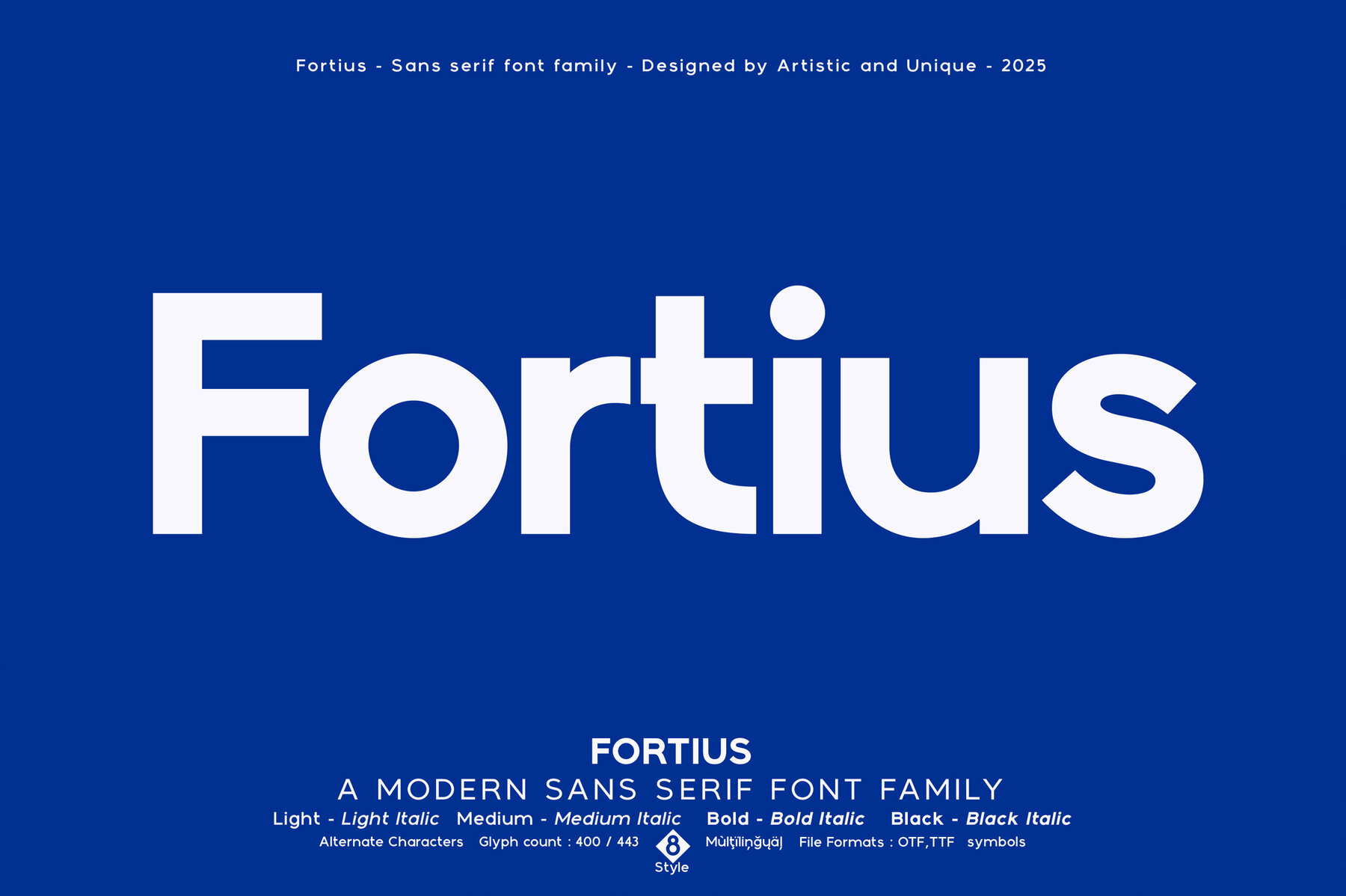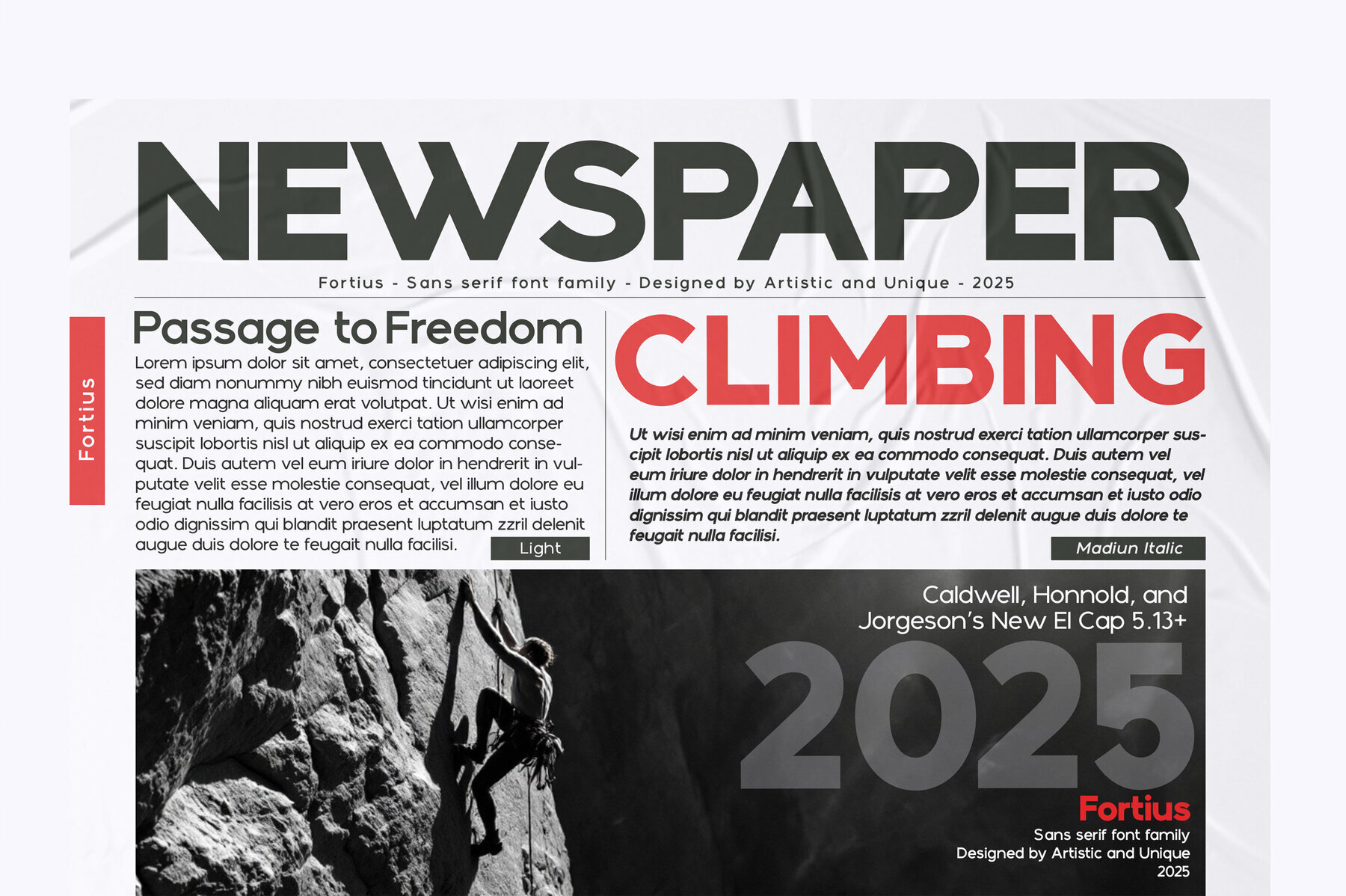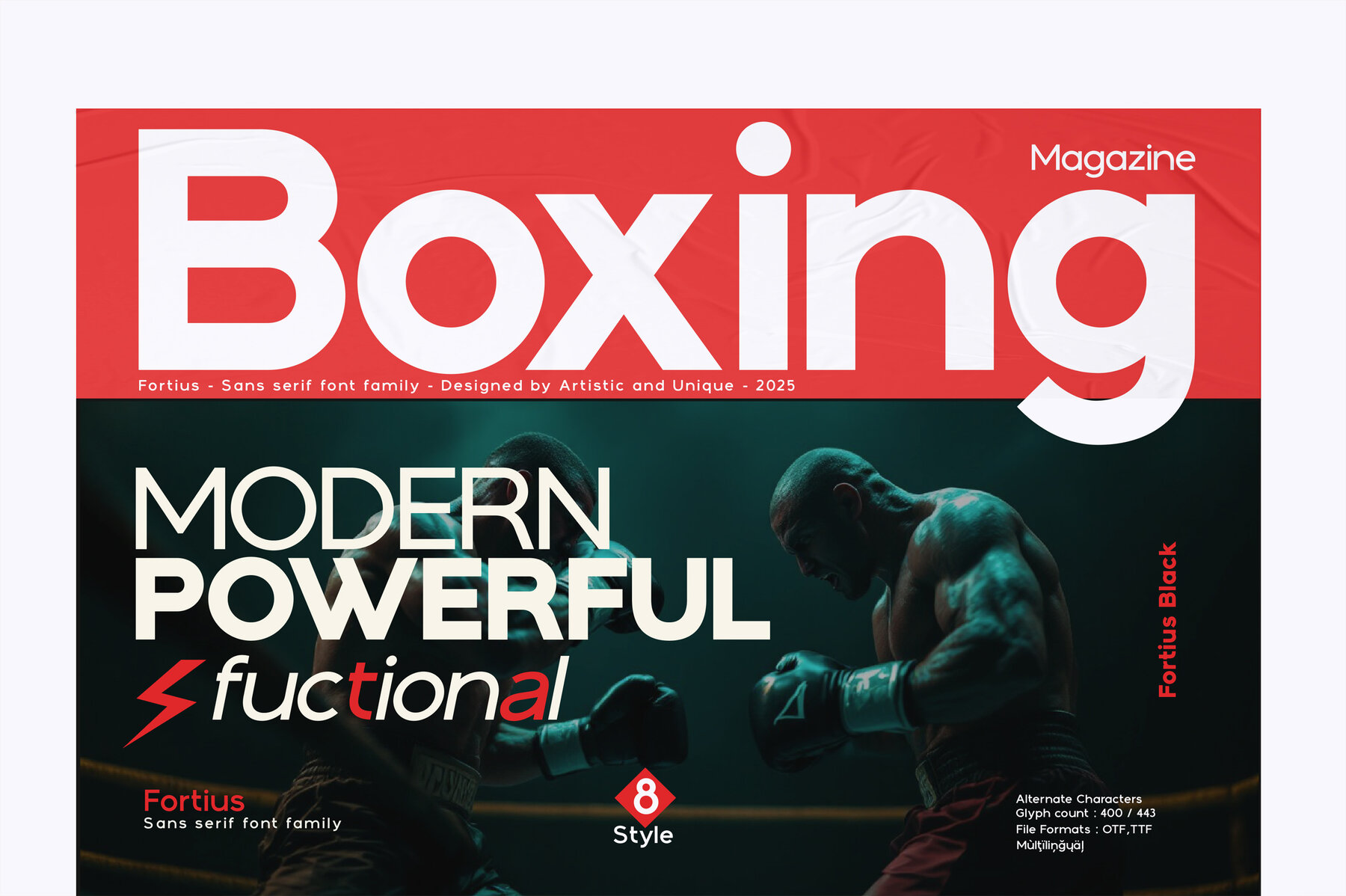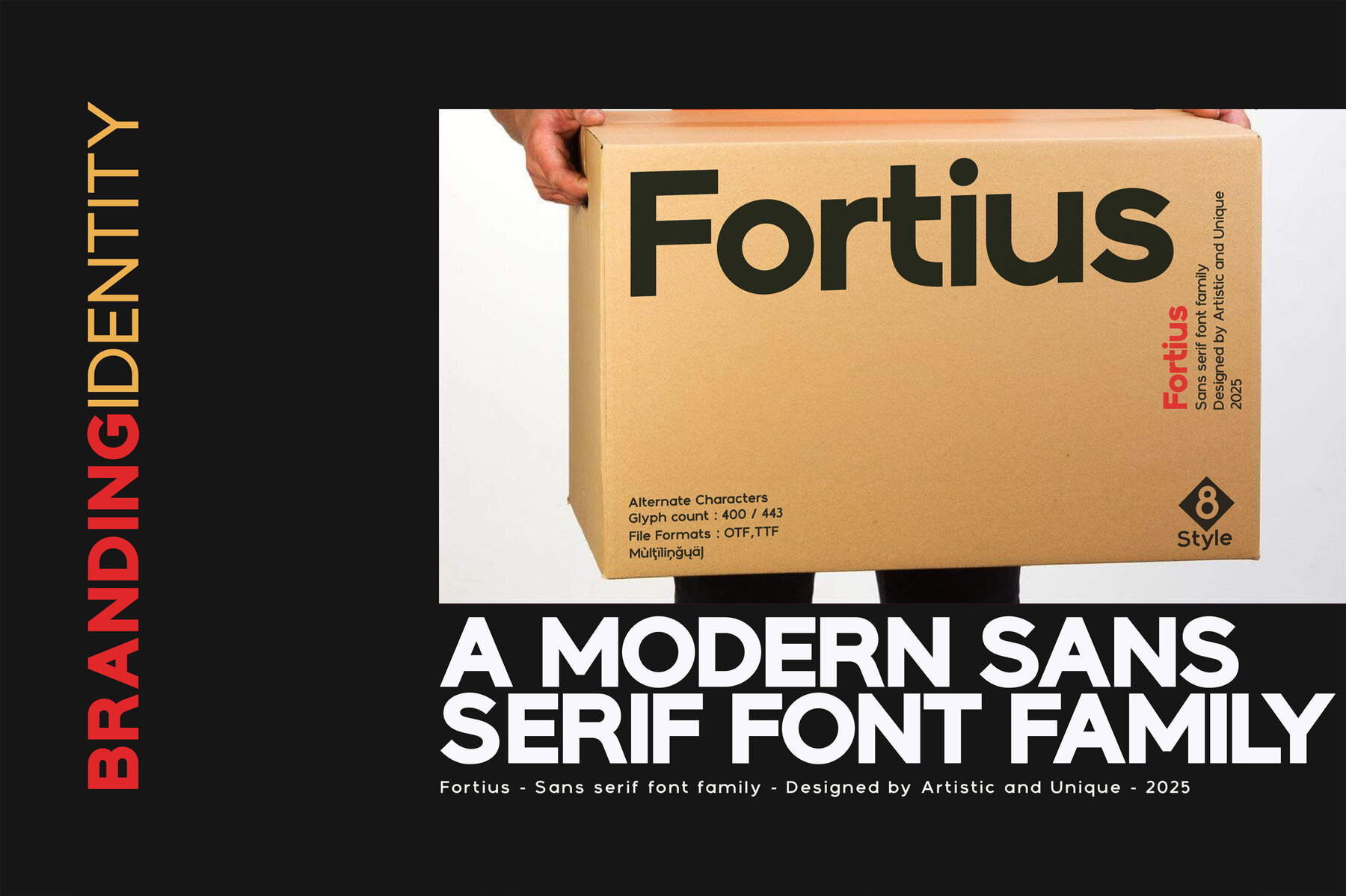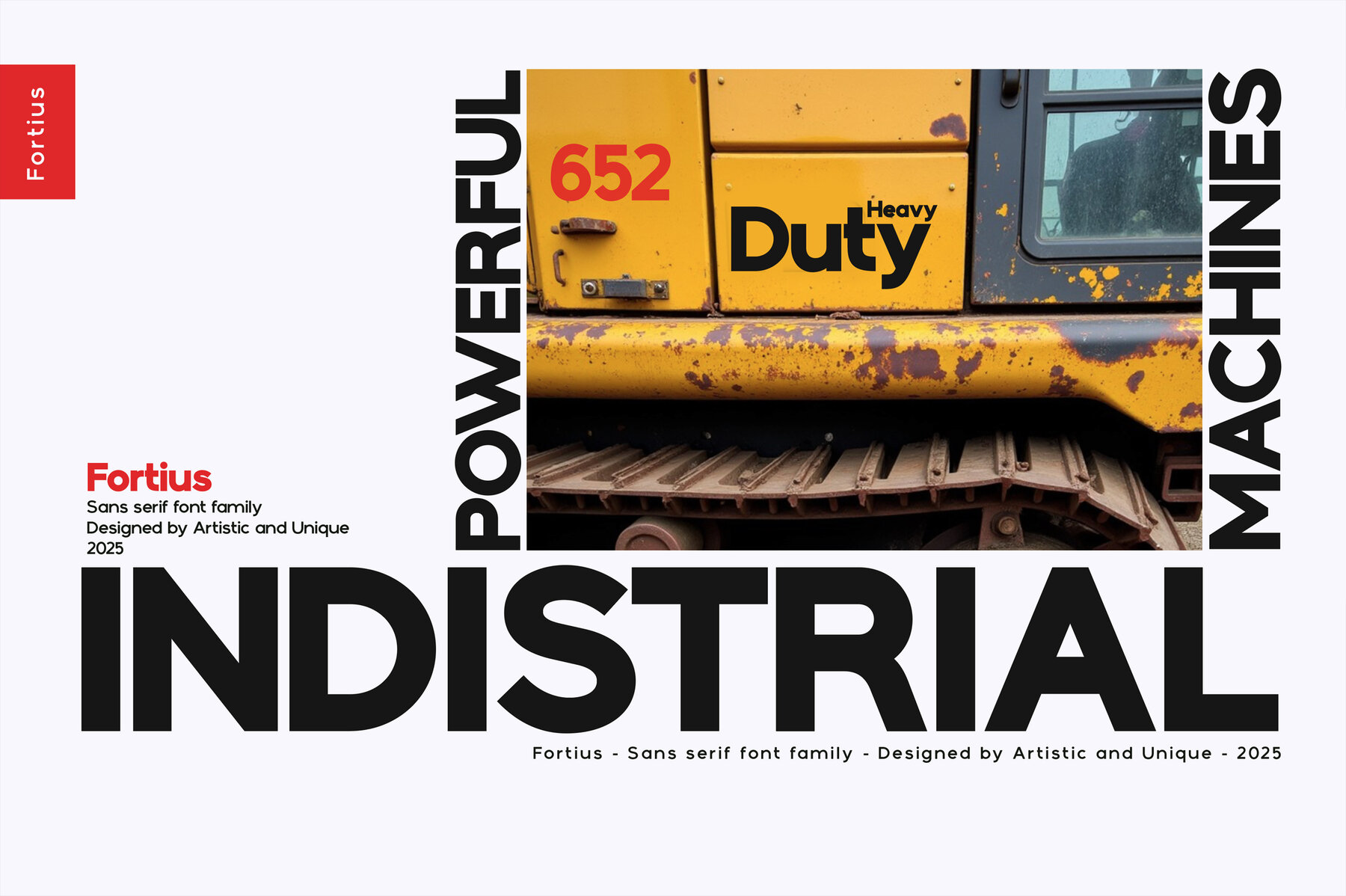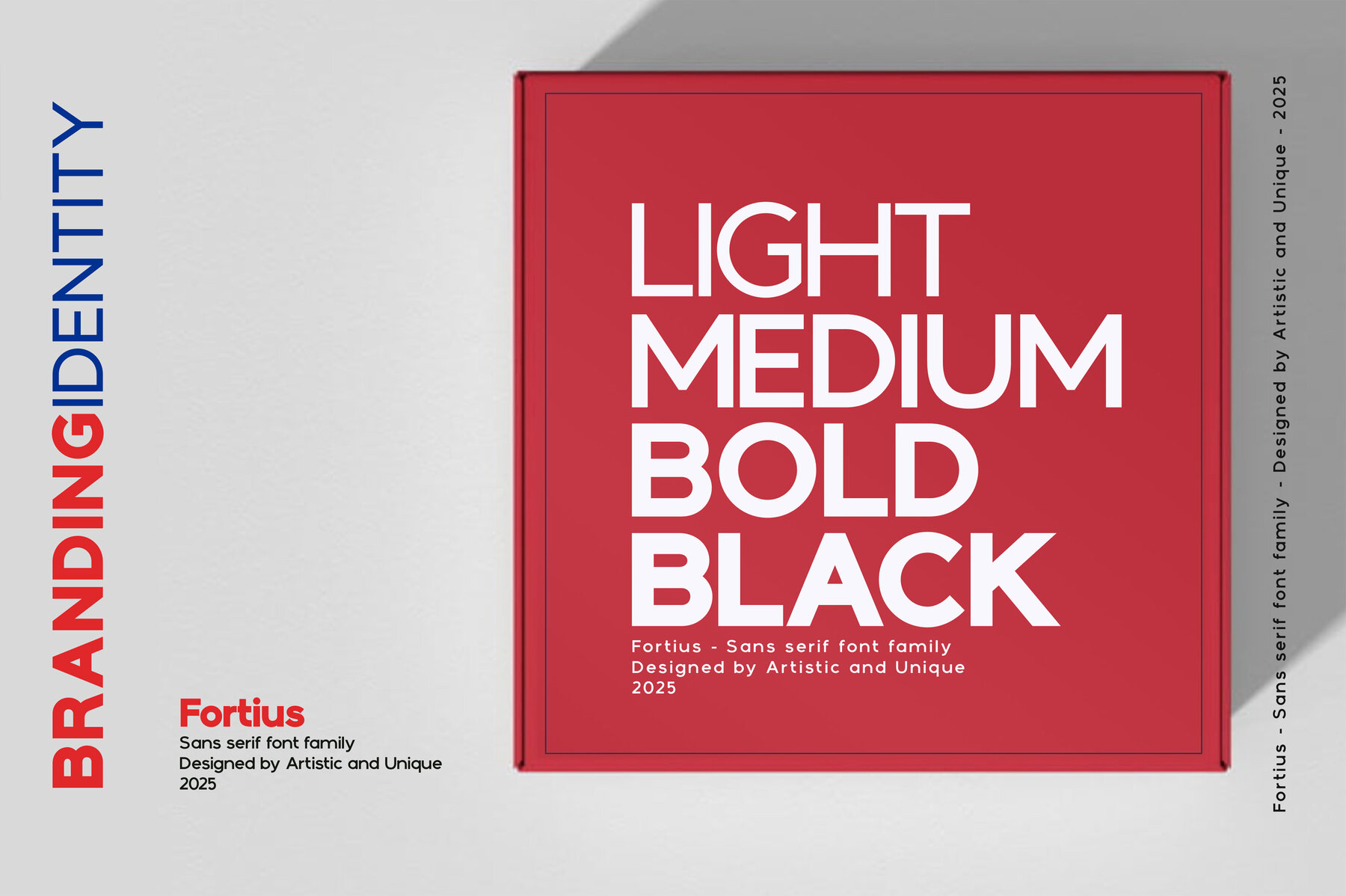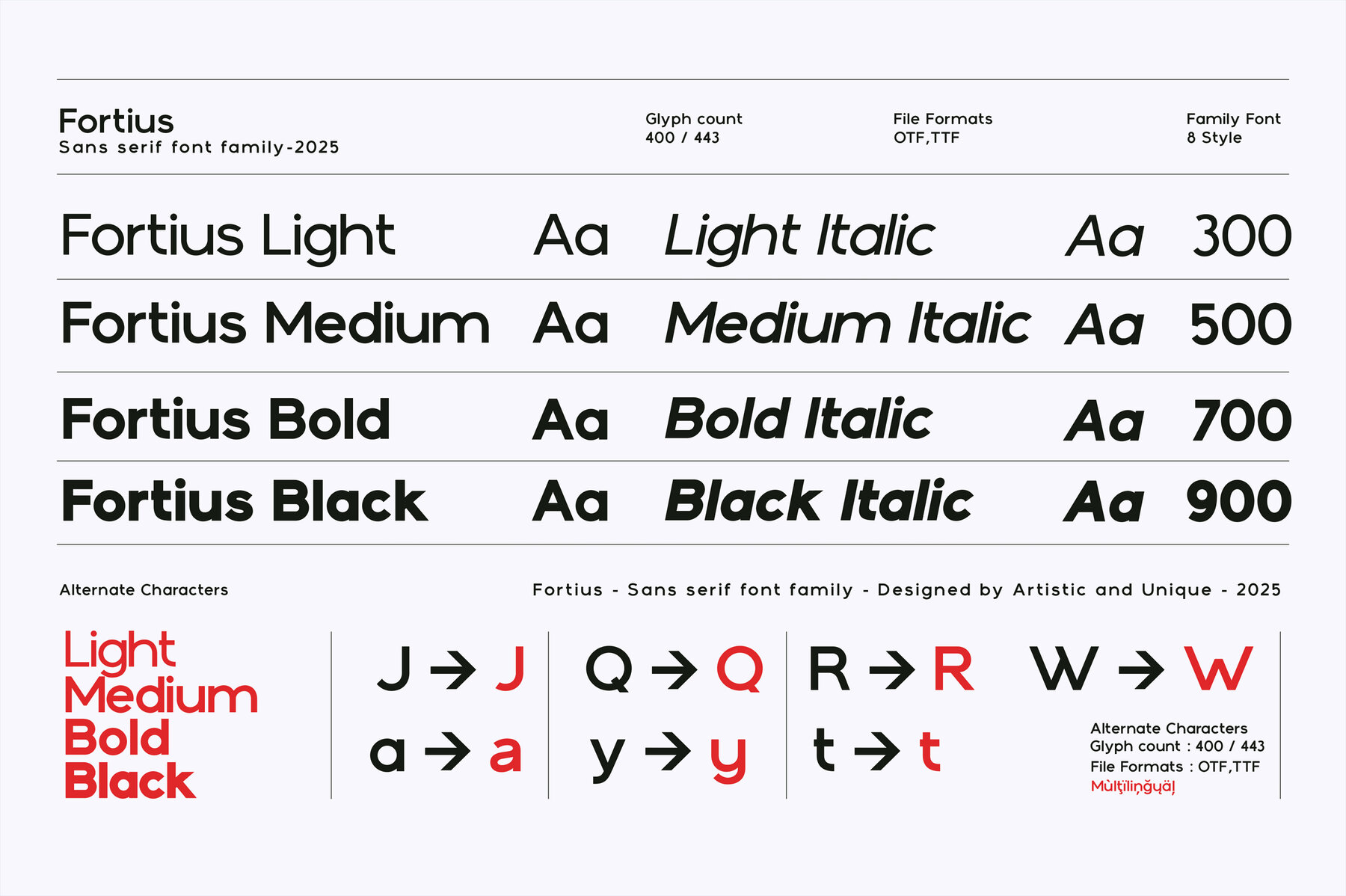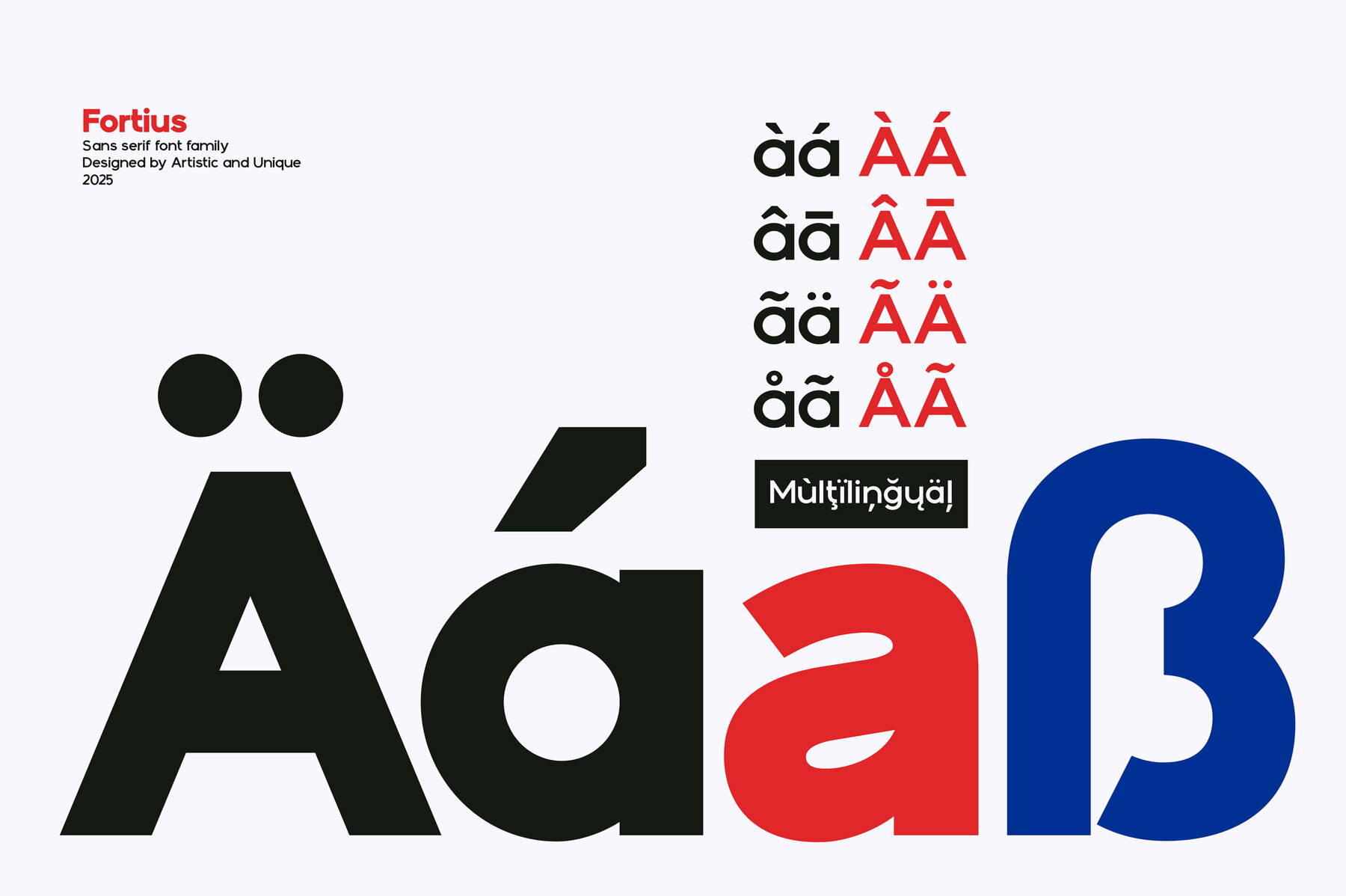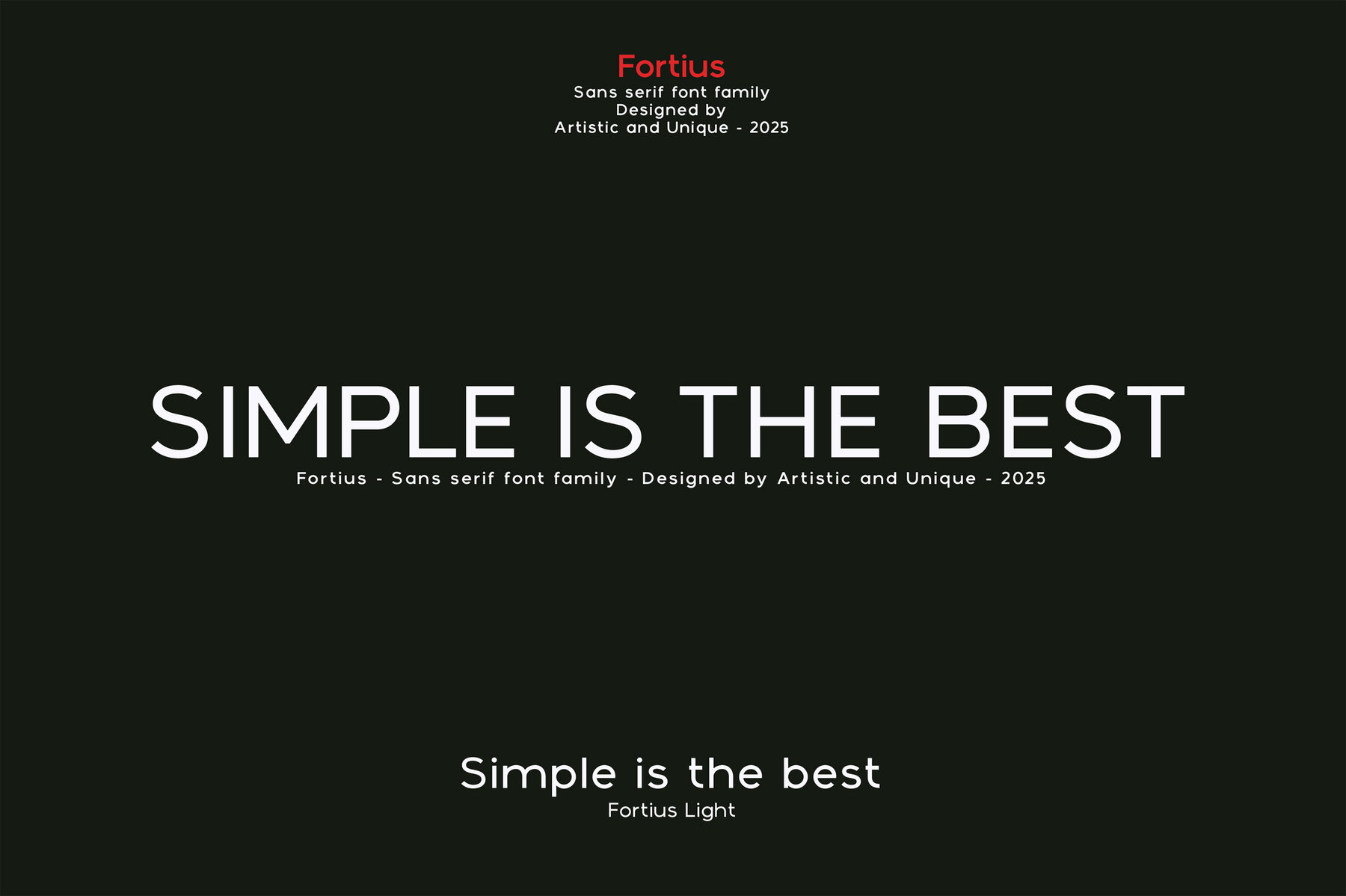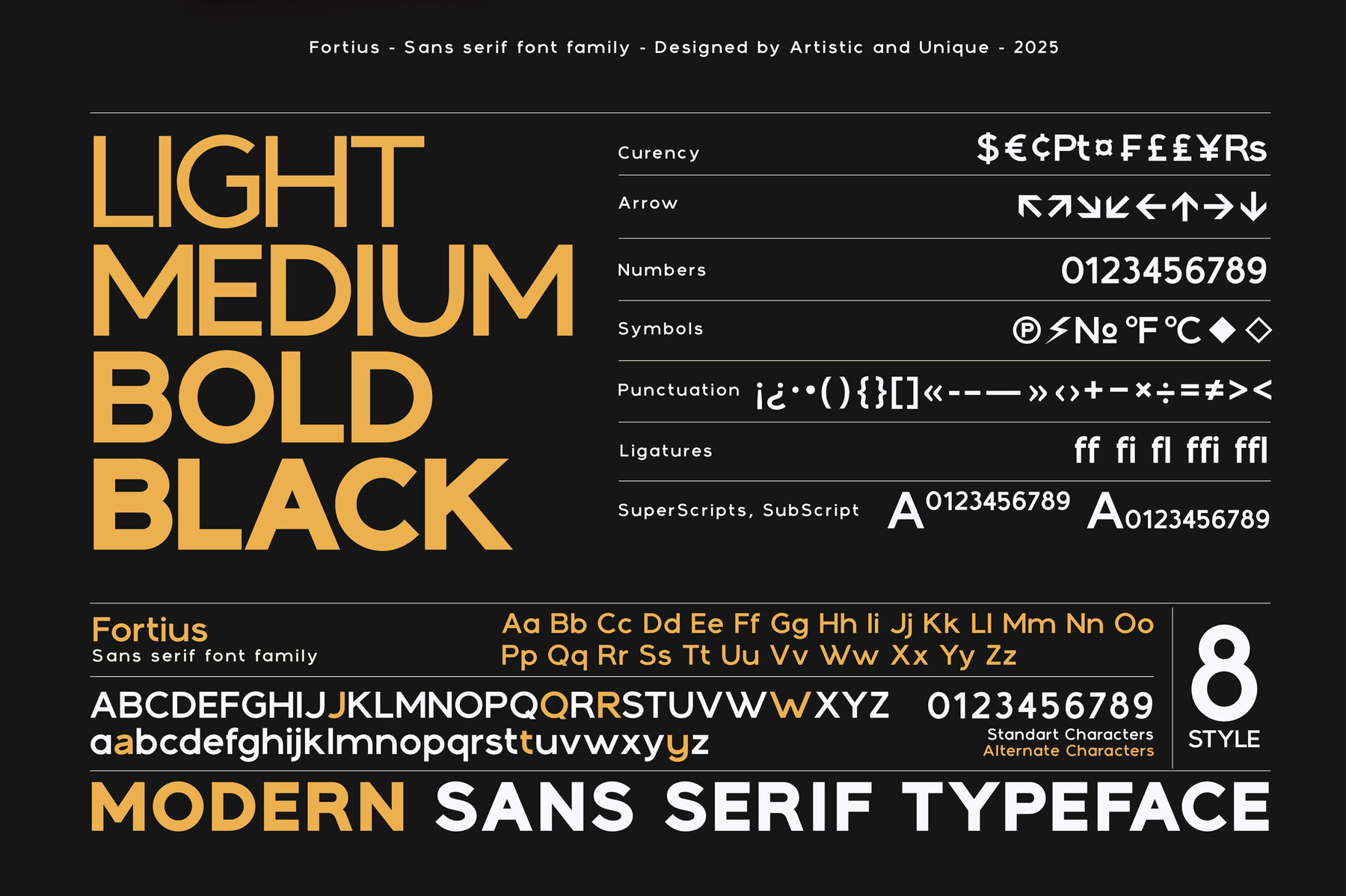
Fortius Font
In the realm of contemporary design, Fortius stands out as a sans serif font family that fuses modern appeal with clean structural elegance. Its versatility allows seamless integration into both digital and print projects, making it an essential choice for designers aiming to enhance their branding toolkit. This family boasts eight distinct styles, ensuring resolute readability and elegance in various creative endeavors. Ranging from delicate light styles to the robust bold and black weights, Fortius suits a multitude of design needs. Its multilingual support further enriches its universal charm, with lighter styles offering sophistication and thicker weights commanding attention in headlines. Whether you're crafting books, magazines, newspapers, or developing editorial headlines, websites, logos, and branding, the Fortius font family provides a harmonious blend of modern and classic aesthetics. Elevate your designs with this versatile typeface that respects tradition while embracing contemporary needs.Fortius: A Modern Sans Serif Font Family